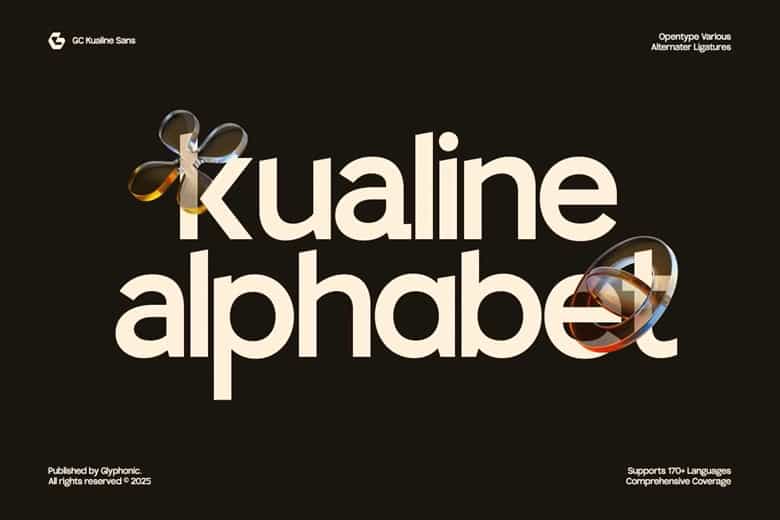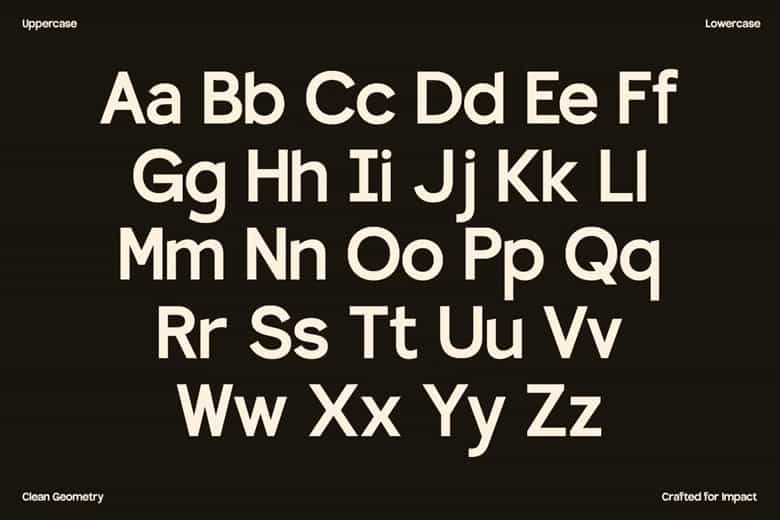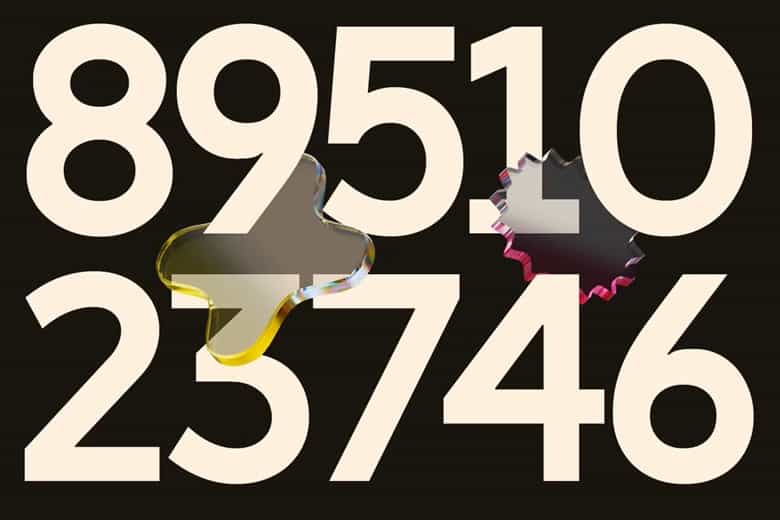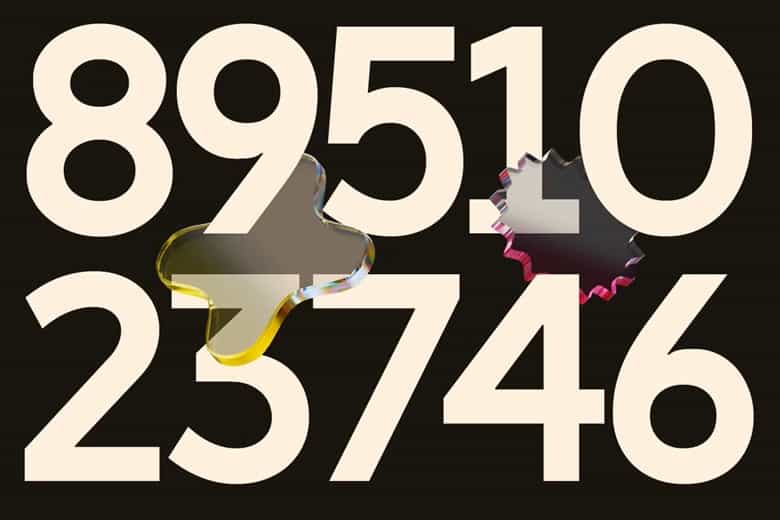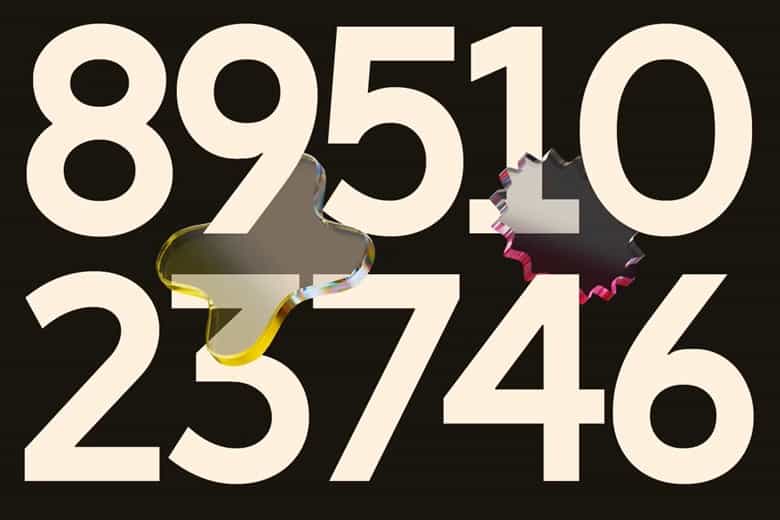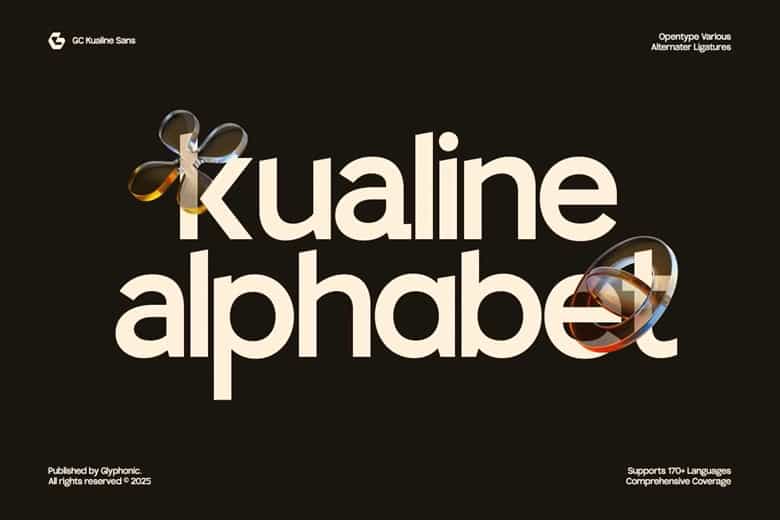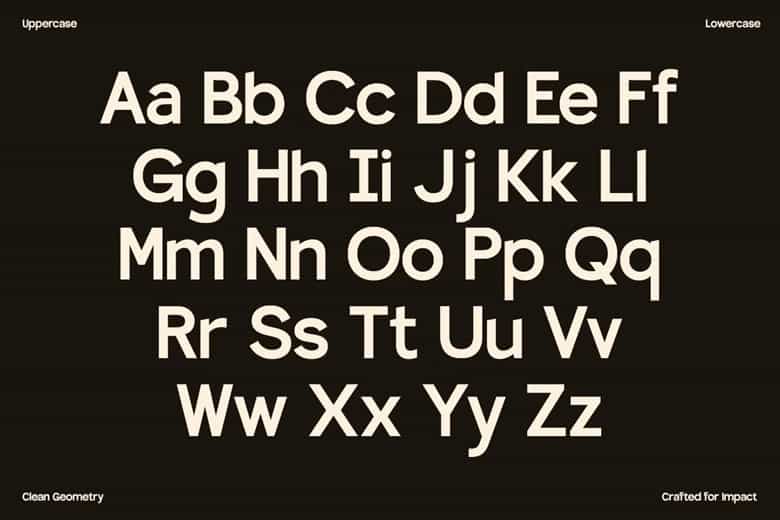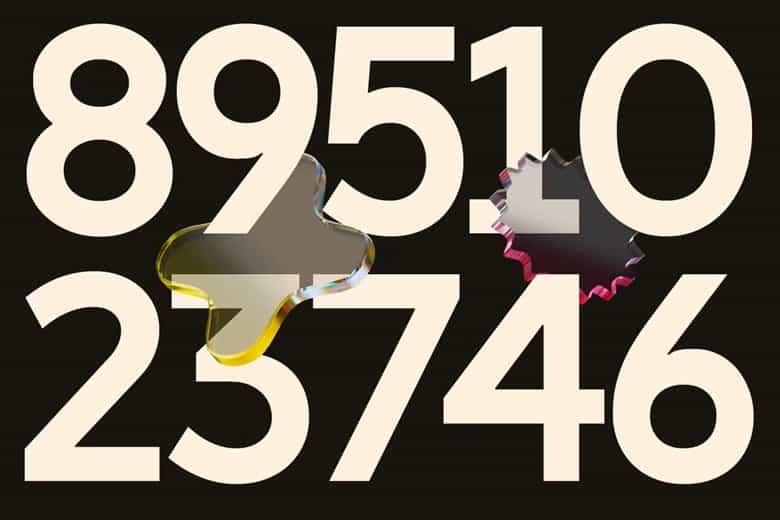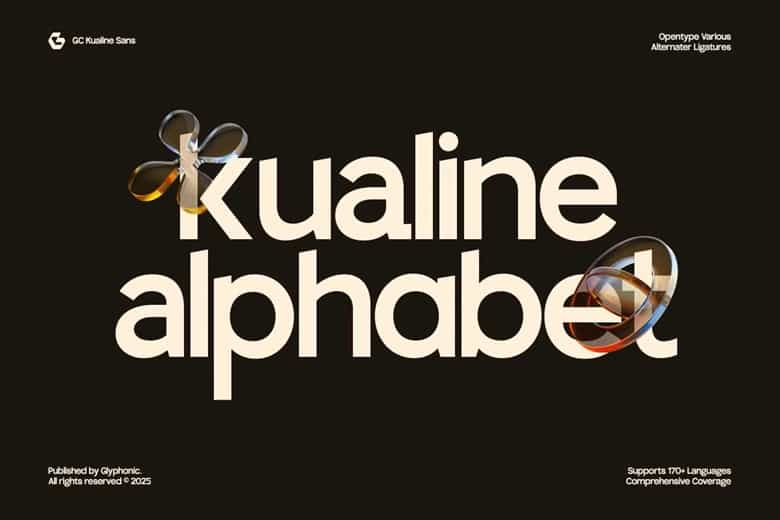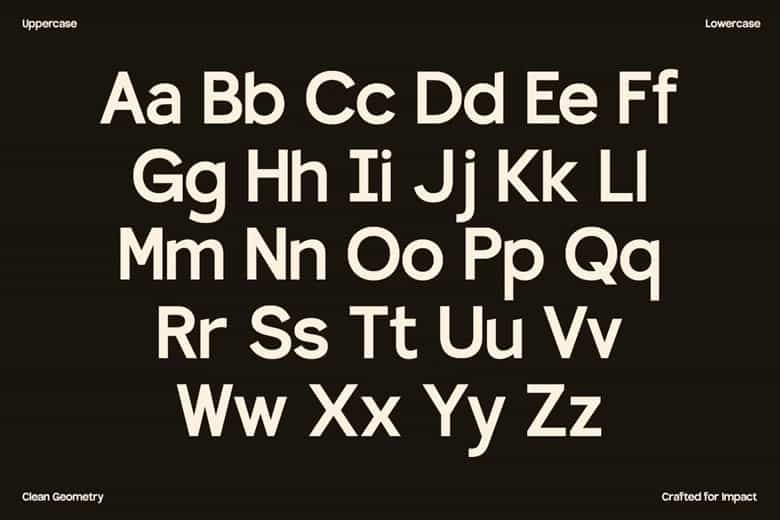
GC Kualine Font
GC Kualine is a contemporary sans serif font which combines the geometric rigidity with the modern elegance. It comes with a clean and balanced structure and is ideally adapted in headlines, branding, logos, packaging and editorial layouts and online screen displays. Designed to do an impressive but sophisticated looking impression, GC Kualine will carry through your visual language with good taste and understanding.